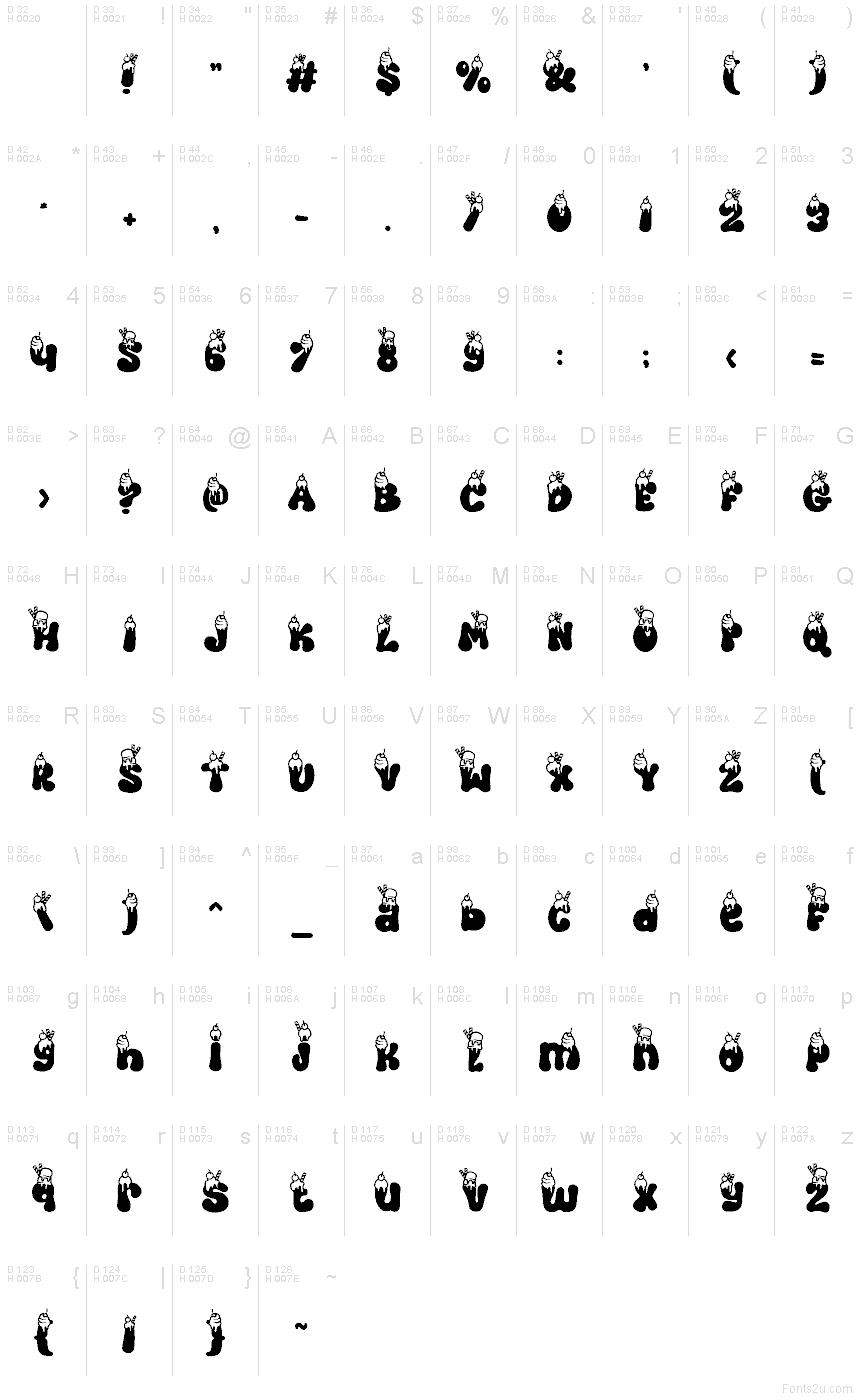
Cold Snowflake Seven
Cold Snowflake Seven font by PutraCetol Studio is a decorative display font in bold cartoon style. This typeface’s illustrated elements create a whimsical retro vibe and infuse any text it types with a playful aesthetic. Decorate your ordinary headlines foe design projects with this free font and allow it to instantly captivate the reader.
Perfect for postcards, posters, branding designs, cartoons, children’s book covers, flyers, brochures, comics covers and pages, printables like calendars and planners.